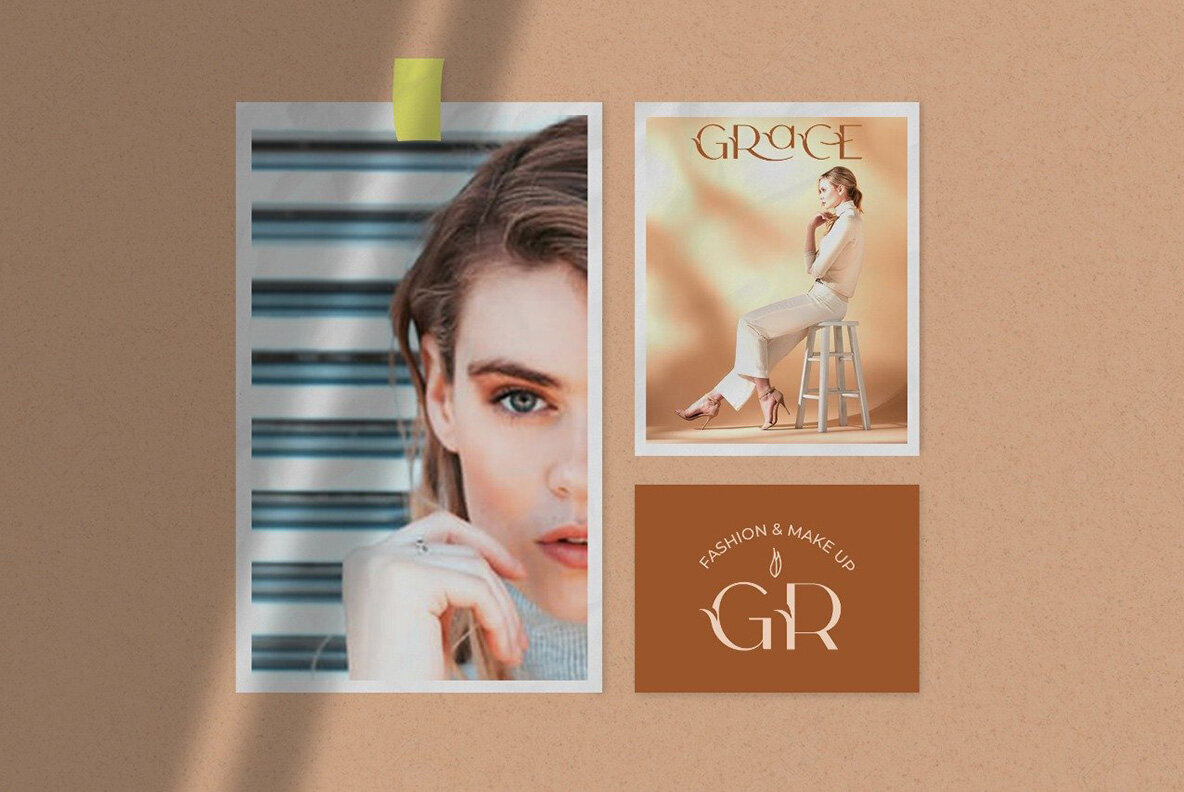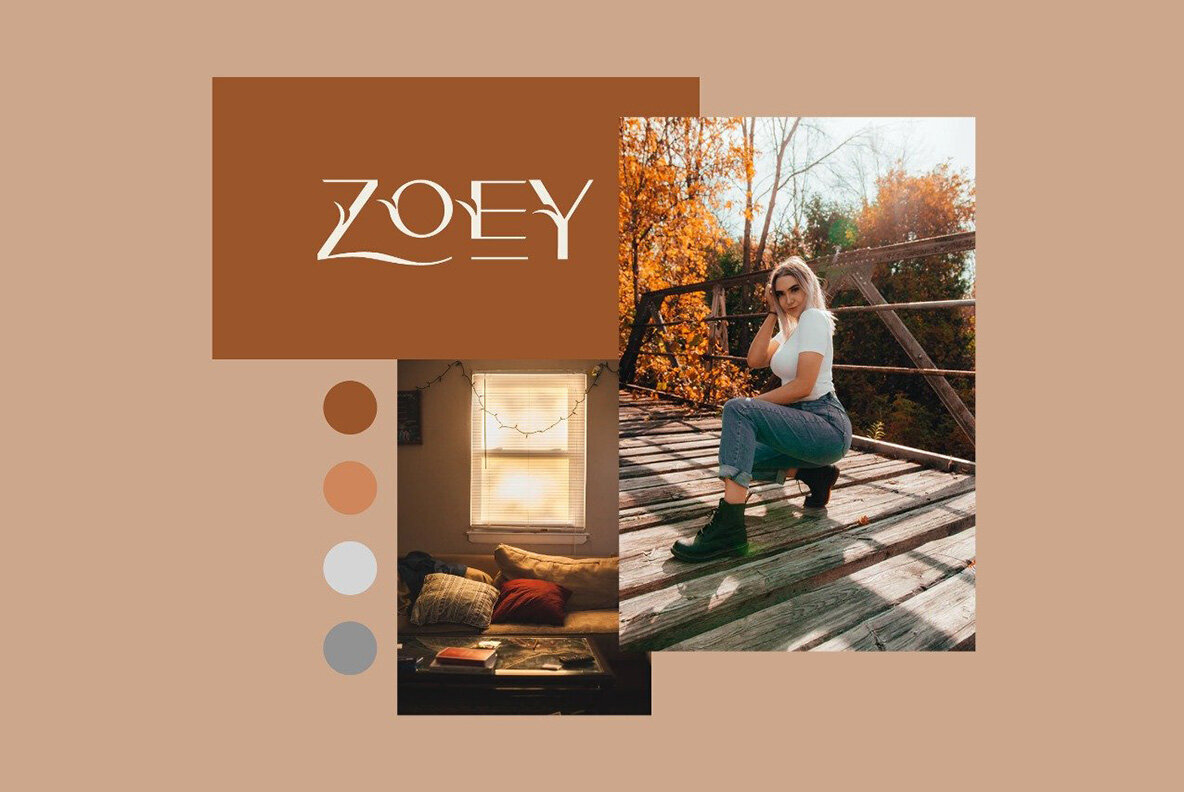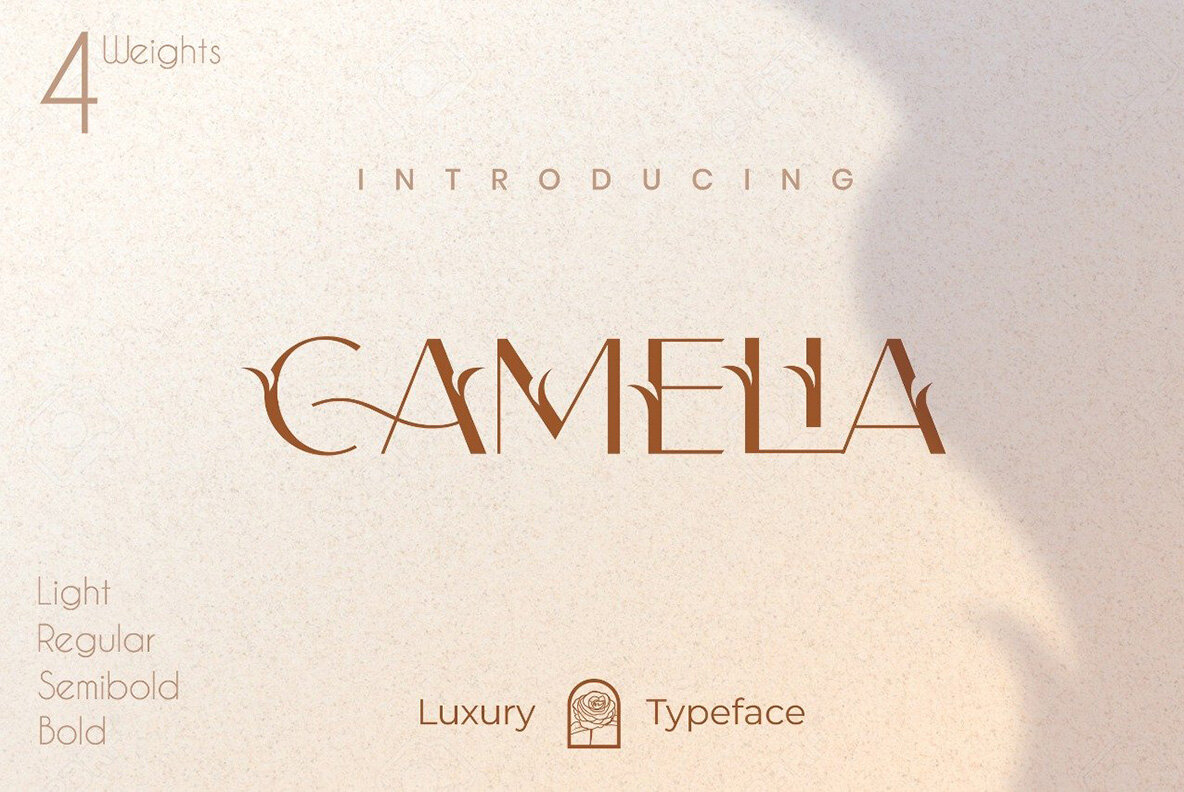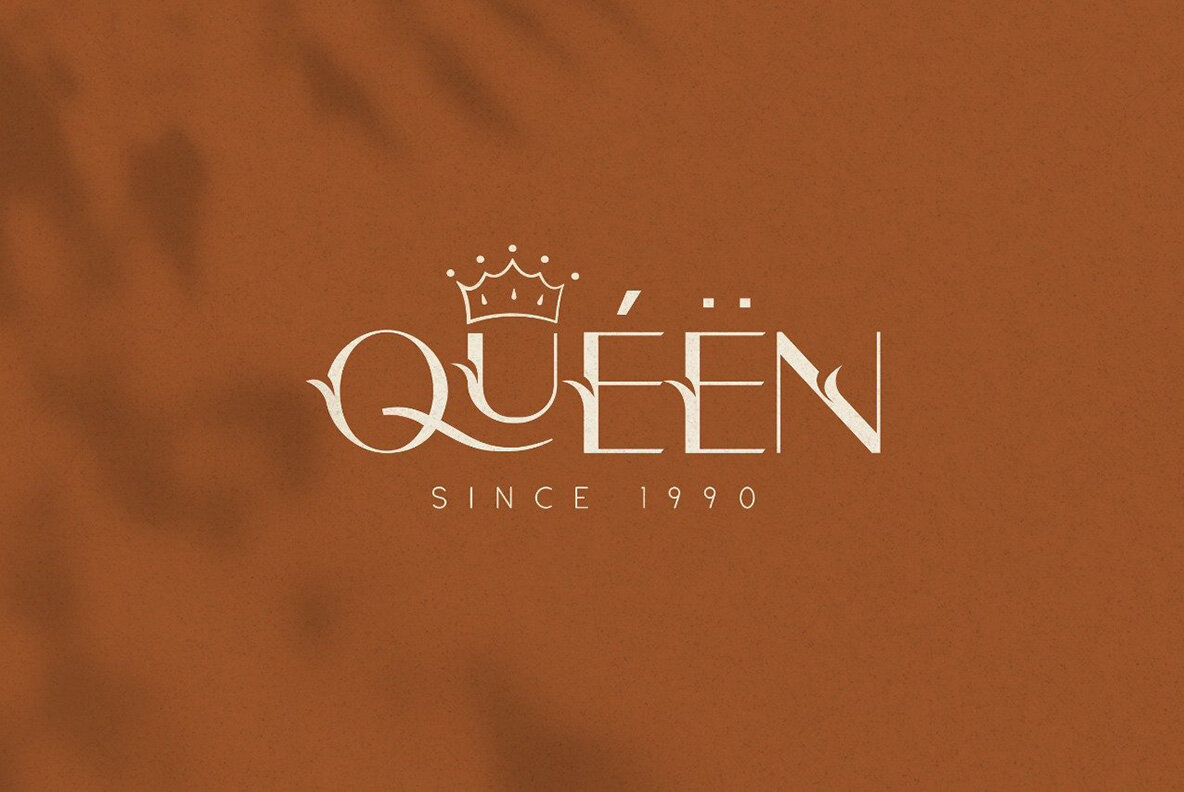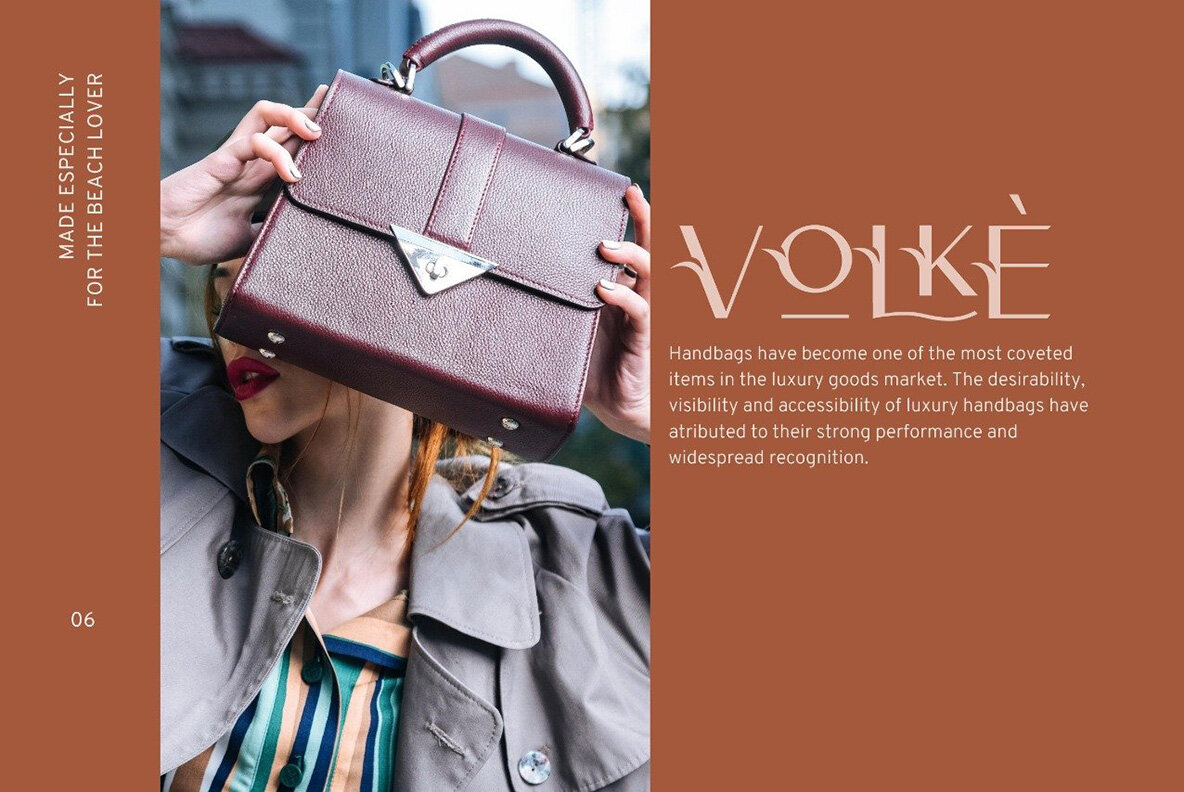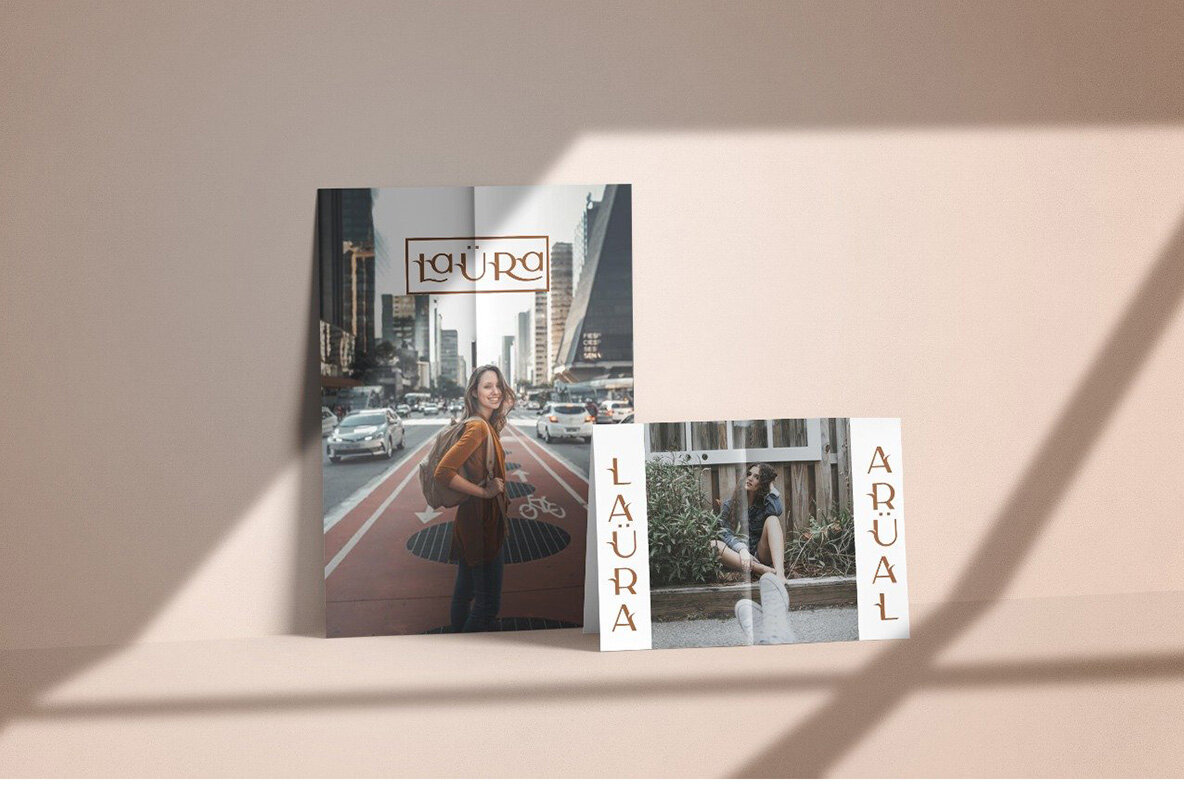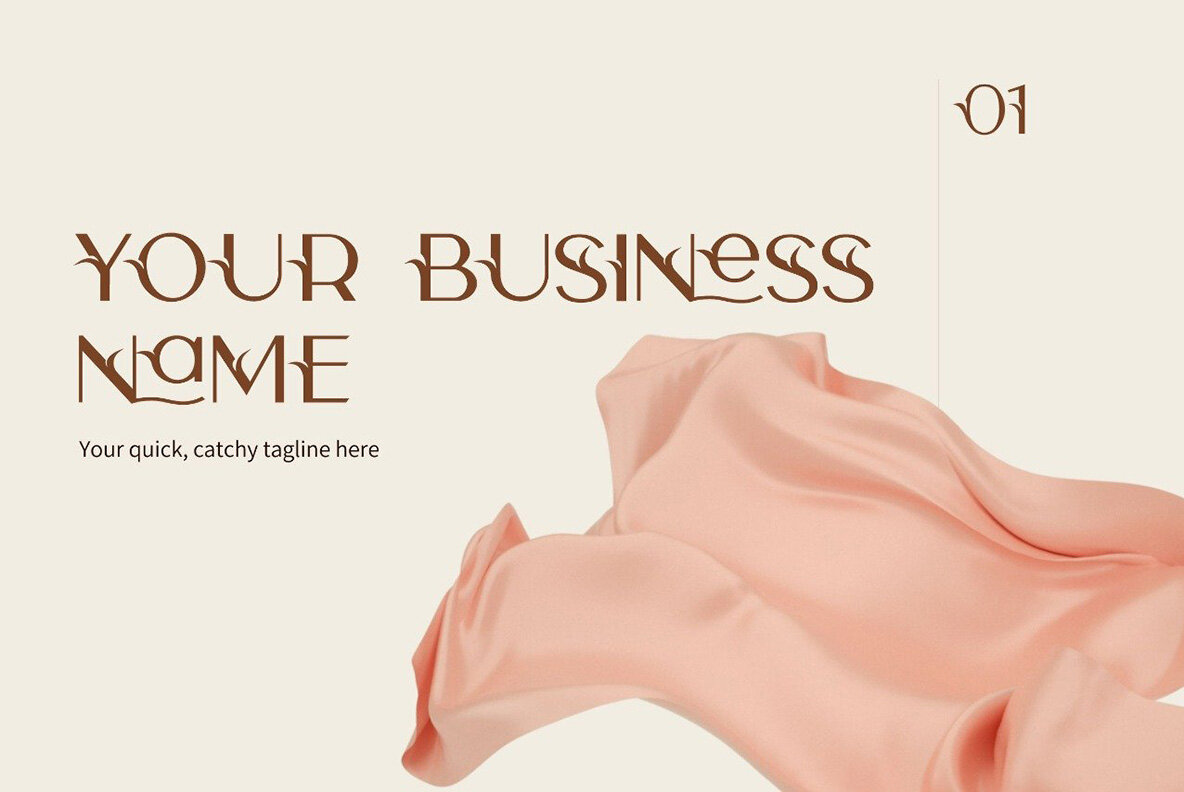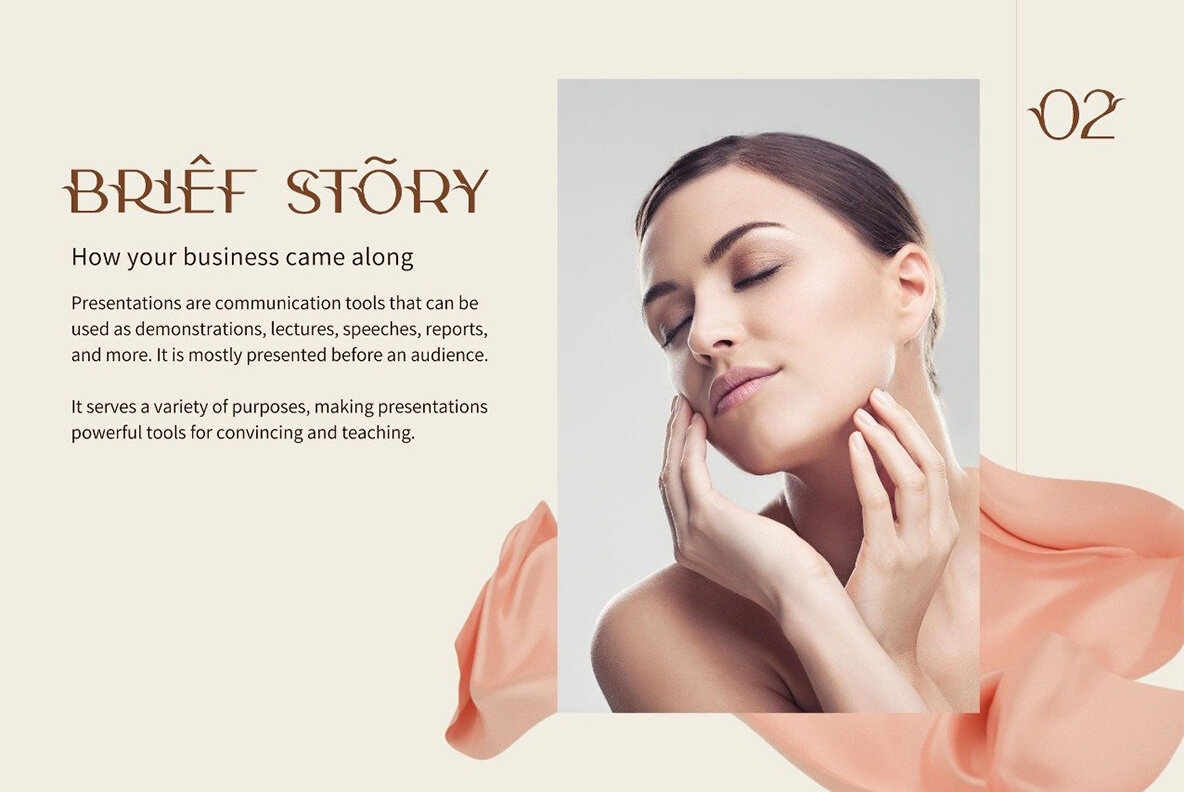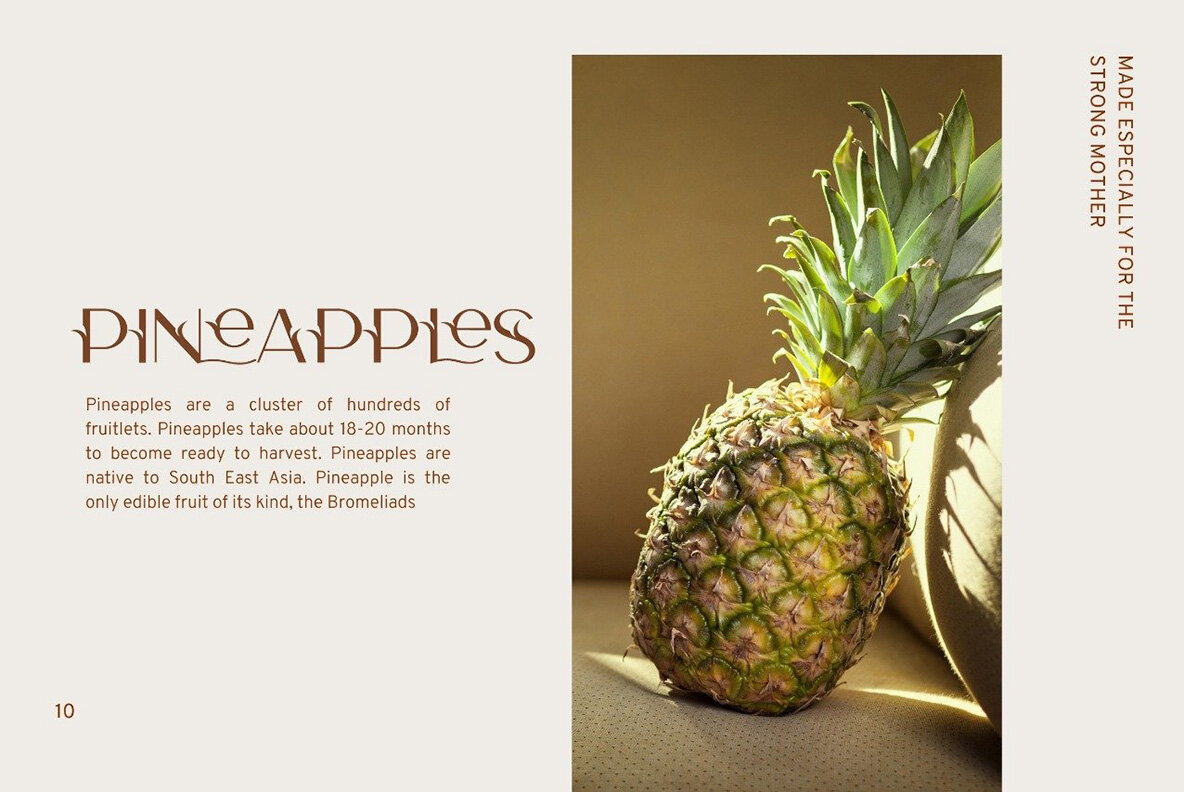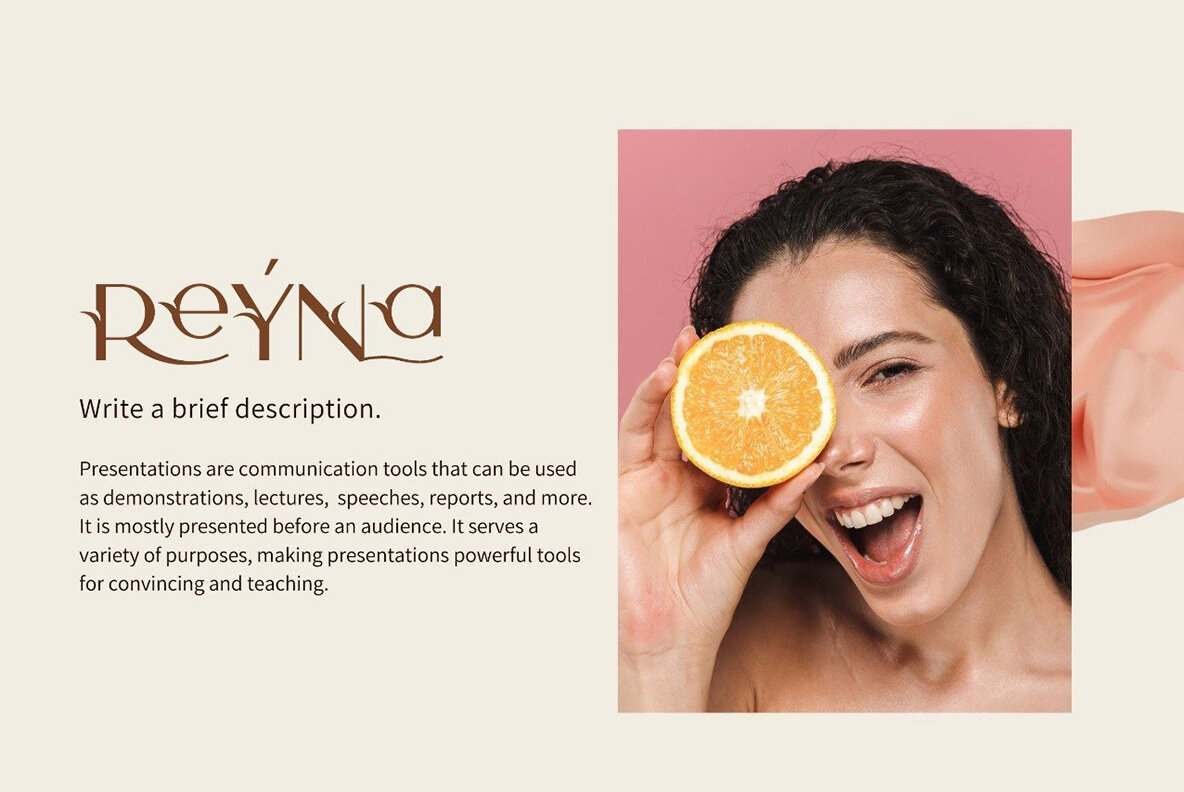
Camelia Sans Font
Camelia Sans is an Elegant font with beautiful ligatures, tons of special alternative glyphs, ornament, and multilingual support. It's a very versatile font that works great in large and small sizes.
- 4 Weights font
- All caps
- Stylistic Alternates & Ligatures
- Numerals & Punctuation
- Accented characters